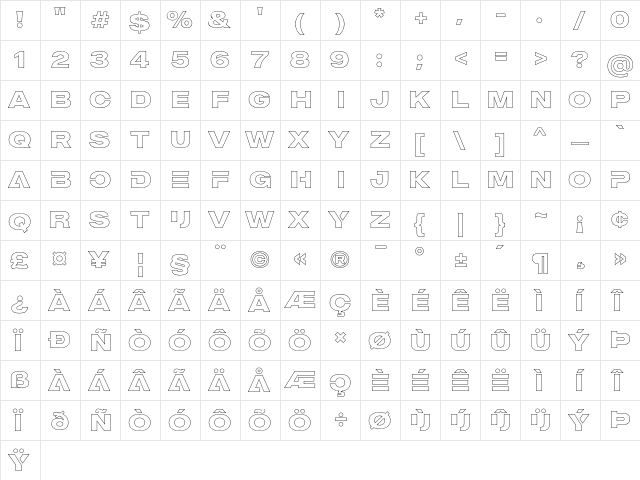
MADE Outer Sans Outline Alt Bold
Design Context for MADE Outer Sans Outline Alt Typeface
MADE Outer Sans Outline Alt is built around its visual character rather than neutral utility — its distinctive forms are designed to make an impression at display sizes. The heavy weight commands attention and anchors typographic hierarchies.
Font Pairing: Pair with a clean neutral sans-serif for body copy to let MADE Outer Sans Outline Alt's character lead without overwhelming the composition.
Pro Tip: Use MADE Outer Sans Outline Alt exclusively at display sizes — it was designed to be seen, not read at length. Let a neutral companion handle body copy.